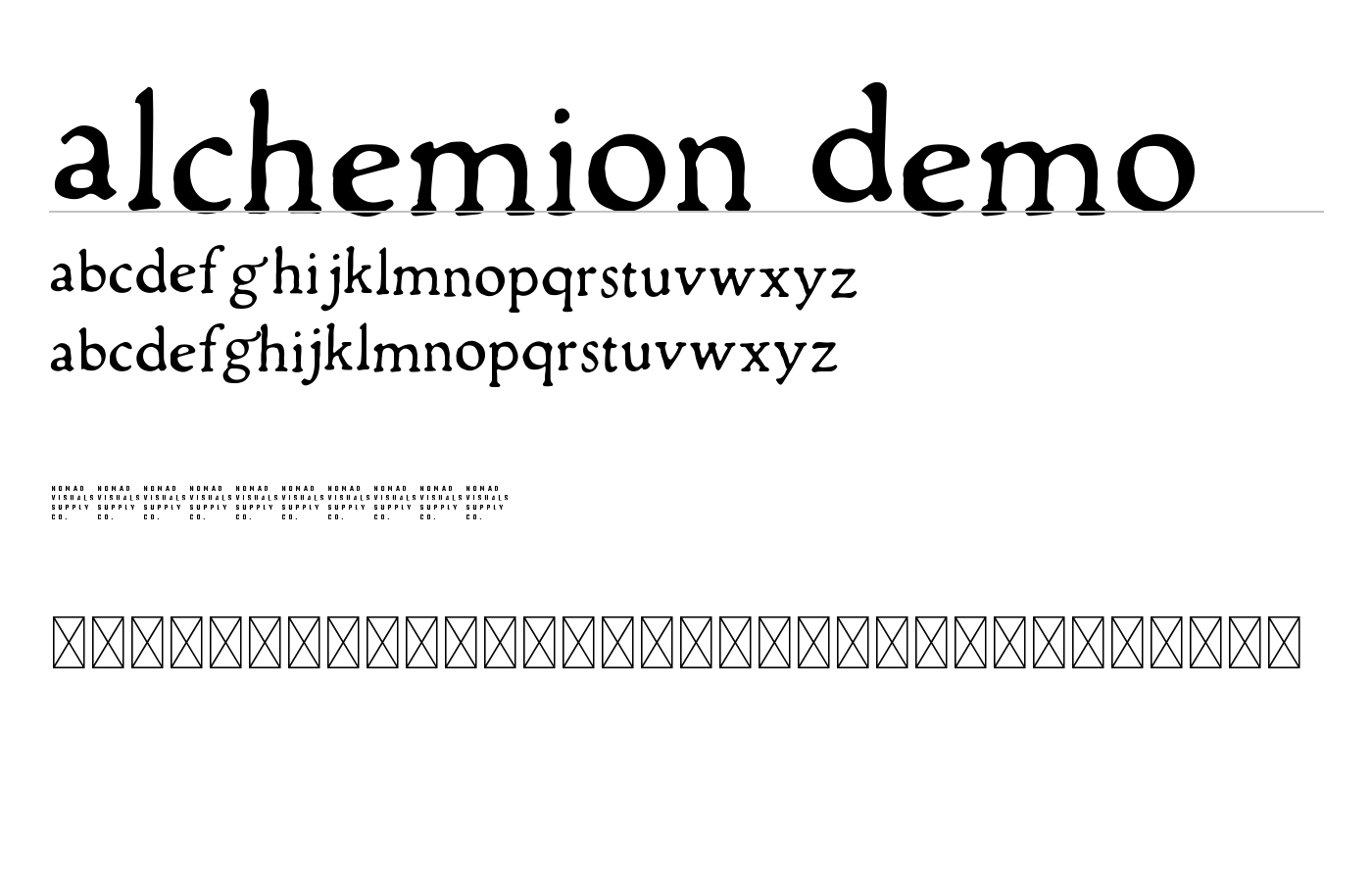
Alchemion Demo is a serif font with a distinctive, slightly irregular style that blends traditional readability with a handcrafted, whimsical feel. Its medium weight and moderate contrast between strokes give it a warm, inviting character, making it ideal for creative projects, storytelling, or brand identities seeking a unique, slightly vintage touch. This font works well in editorial design, packaging, and headlines where a charming and approachable tone is desired.
Alchemion Demo Font
About Alchemion Demo Font
| Font family | Alchemion Demo Font |
| Designer | Nomad Visuals Co.™ |